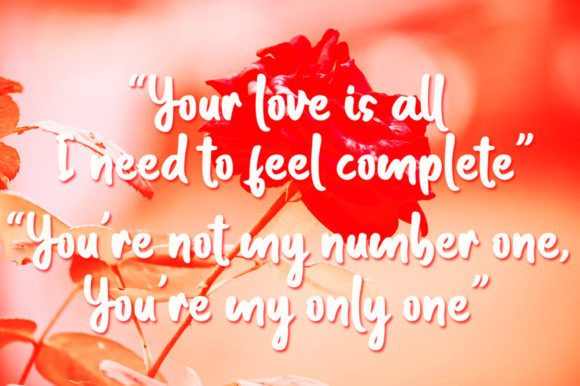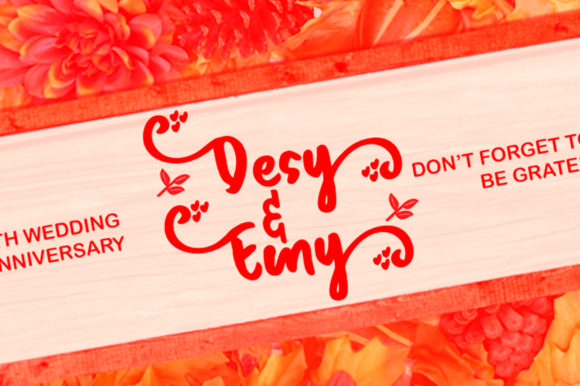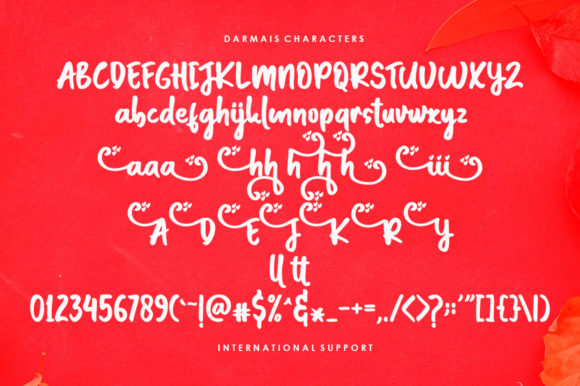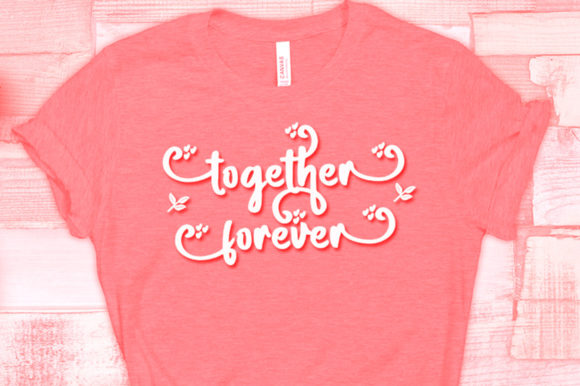
Darmais Script Font
About Darmais Script Font
Darmais Script is a lovely script font featuring charming, playful characters that seem to dance along the baseline. Add it to your most creative ideas, and notice how it makes them stand out! This font is PUA encoded which means you can access all glyphs and swashes with ease!